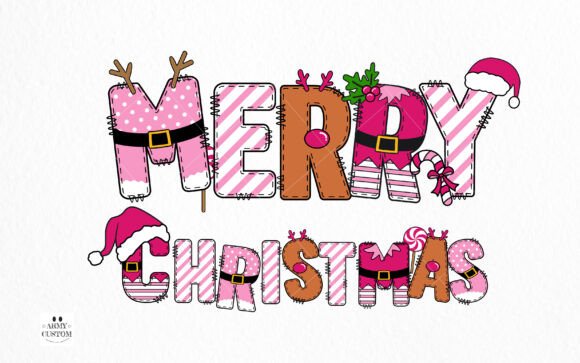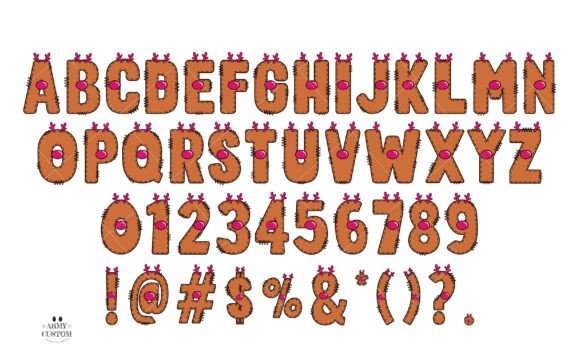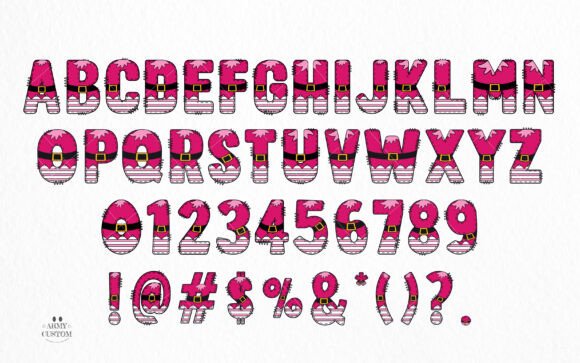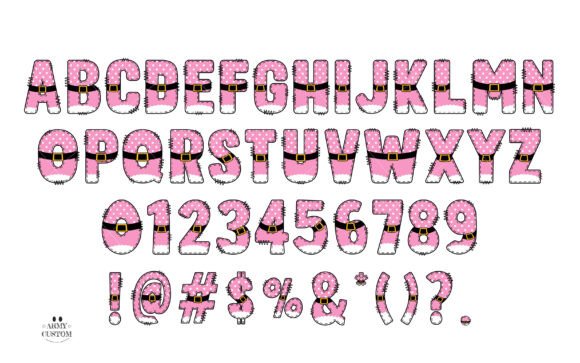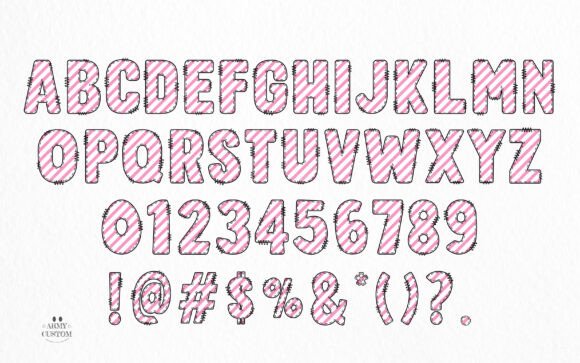
Elevate Your Festive Projects with the Delightful Christmas Army Bundle Font
The holiday season is upon us, and with it comes the joy of creating festive projects that bring cheer and merriment to our loved ones. As designers and crafters, we’re always on the lookout for unique and playful fonts to add a touch of magic to our holiday designs. This is where the Christmas Army Bundle Font comes in – a delightful addition to your holiday design toolkit that’s sure to elevate your projects to new heights.
A Playful and Whimsical Font
The Christmas Army Bundle Font is a playful and whimsical font that’s imbued with a sense of fun and festivity. Its jovial style makes it an ideal choice for creating vibrant holiday decorations, adding a dash of merriment to any design project, or simply spreading holiday cheer through your designs. With this font, every letter spelled out becomes a joyous celebration, perfect for getting you in the mood for the holiday season.
Inspired by the Adorable Antics of Santa’s Helpers
This charming font is inspired by the adorable antics of Santa’s helpers – the elves! The Christmas Army Bundle Font is designed to capture the spirit of the holiday season, with a playful and elfish style that’s sure to bring a smile to your face. Whether you’re creating holiday cards, decorations, or gifts, this font is the perfect choice to add a touch of whimsy and fun to your designs.
Tips and Ideas for Using the Christmas Army Bundle Font
So, how can you use the Christmas Army Bundle Font to elevate your festive projects? Here are a few ideas to get you started:
- Create vibrant holiday decorations, such as signs, banners, and garlands, using the font’s playful and whimsical style.
- Add a dash of merriment to your holiday cards and invitations with the font’s jovial and elfish style.
- Use the font to create custom gifts, such as mugs, t-shirts, and tote bags, that are sure to bring a smile to your loved ones’ faces.
- Incorporate the font into your holiday-themed digital designs, such as social media graphics, blog posts, and email newsletters.
The Christmas Army Bundle Font is a delightful and playful addition to your holiday design toolkit. With its whimsical style, jovial tone, and compatibility with a range of design programs and cutting machines, this font is sure to elevate your festive projects to new heights. Whether you’re a designer, crafter, or simply someone who loves the holiday season, this font is a must-have for anyone looking to add a touch of magic to their holiday designs.